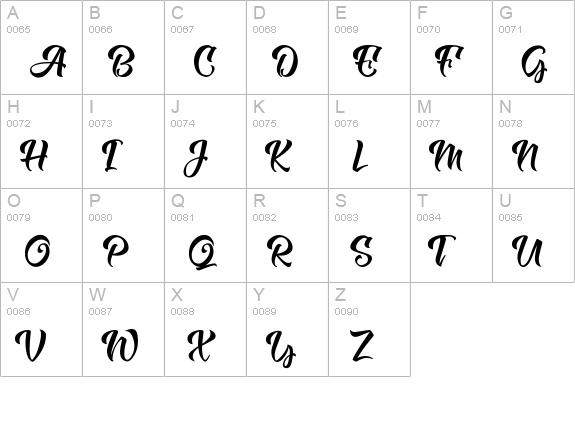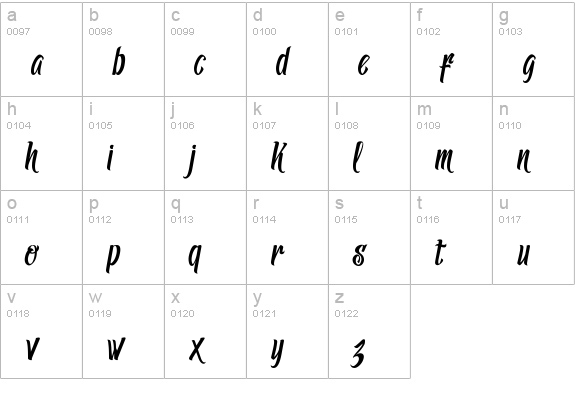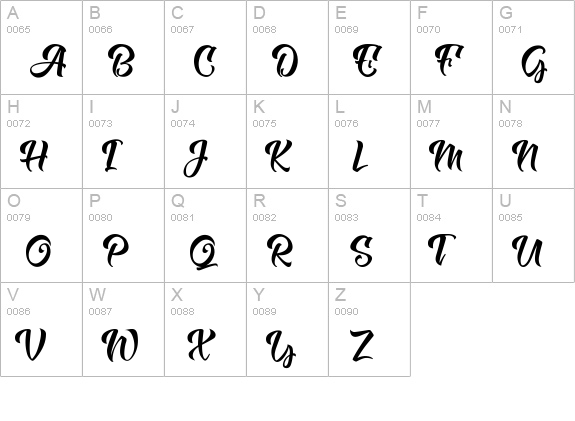
Lemonade Font Details
Introducing Lemonade font, a refreshing and vibrant typeface that exudes a sense of zest and energy. With its playful curves and sleek lines, Lemonade font is perfect for adding a pop of personality to your designs. Whether you're creating a fun poster, eye-catching logo, or stylish packaging, this font is sure to make a statement. Best of all, Lemonade font is completely free to download at FontsMarket.com. Yes, you read that right - you can easily access this charming font at no cost, making it an ideal choice for designers on a budget or anyone looking to add a touch of sweetness to their projects. Don't miss out on the opportunity to enhance your creations with the delightful Lemonade font today!